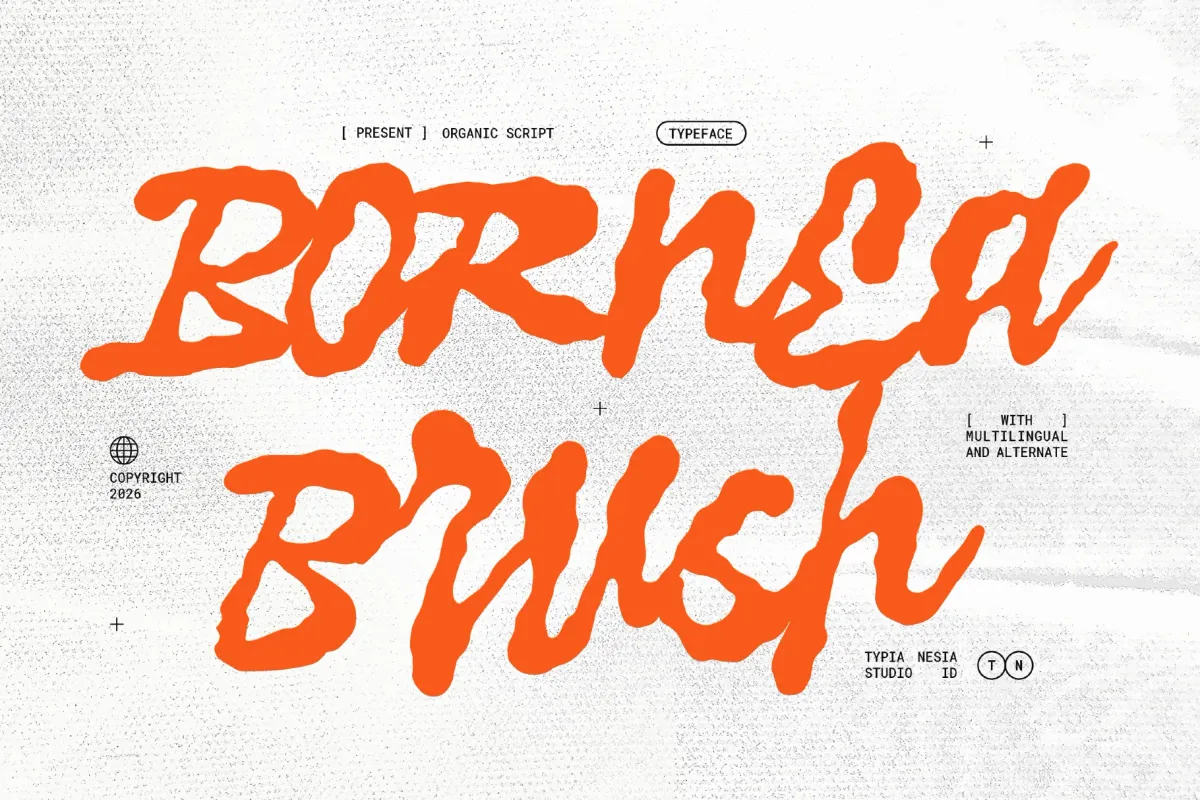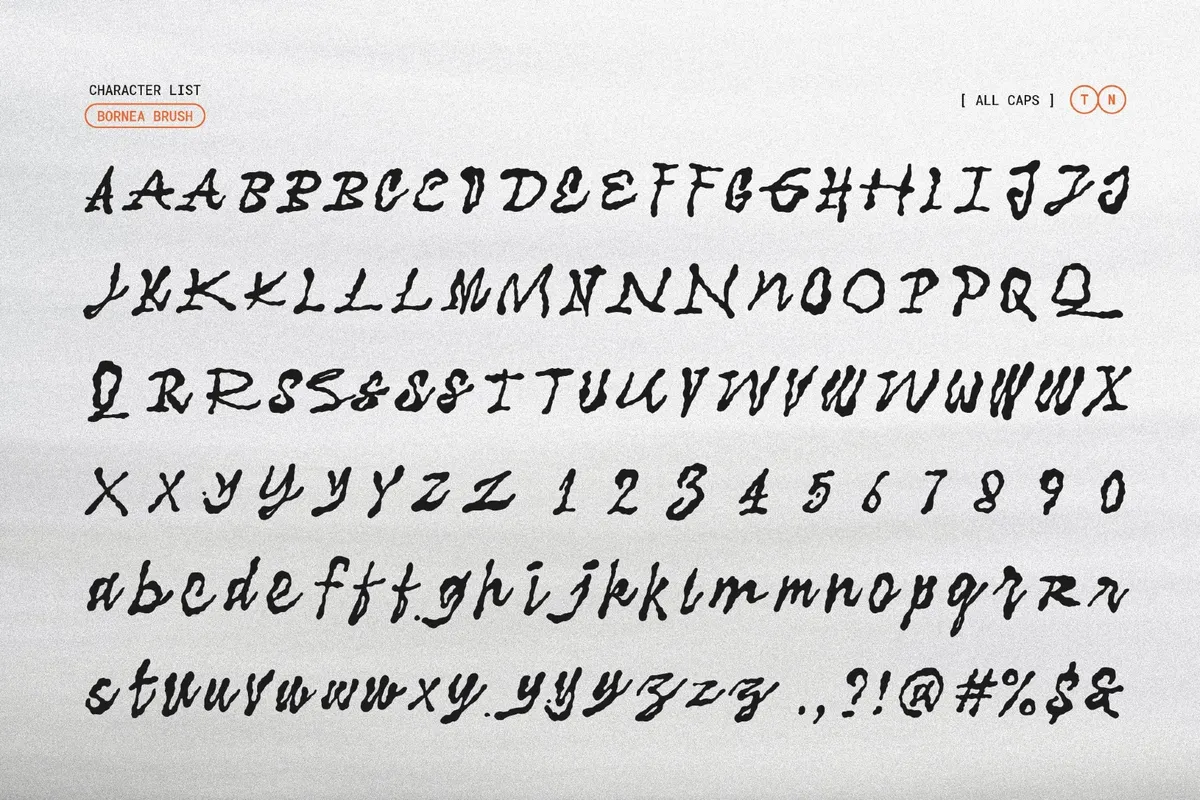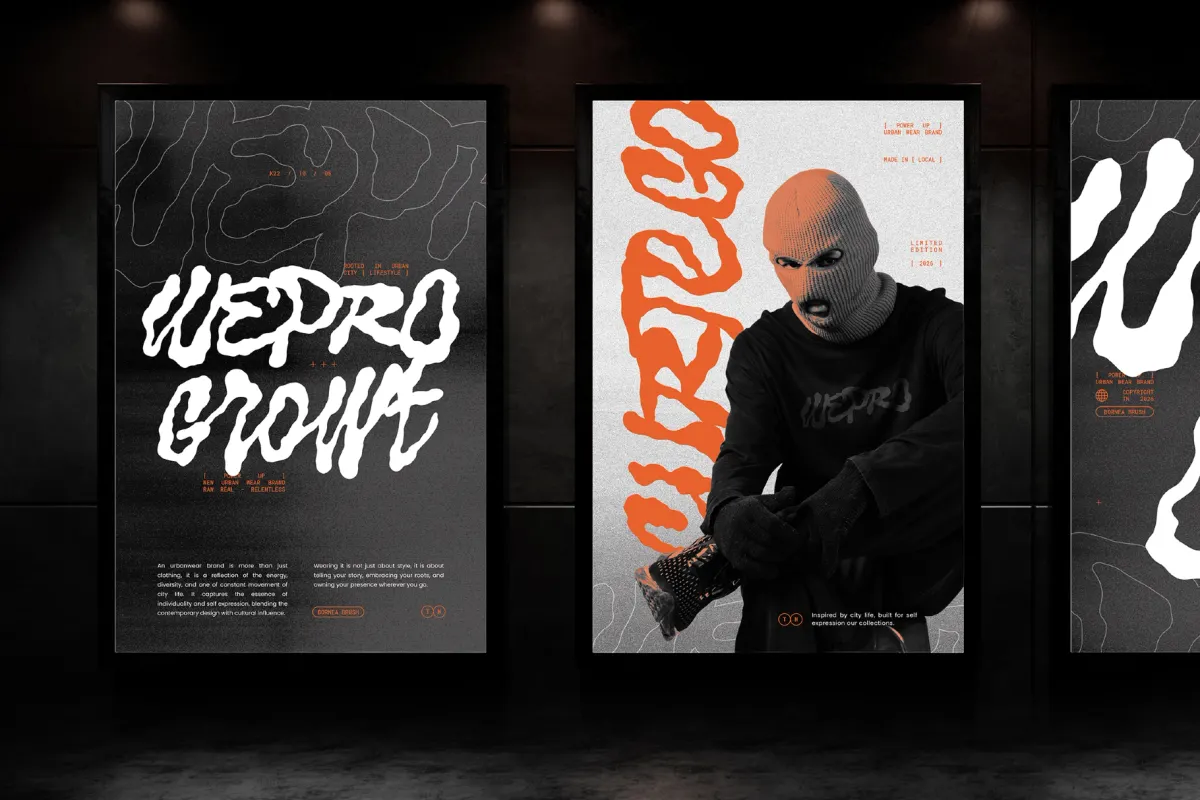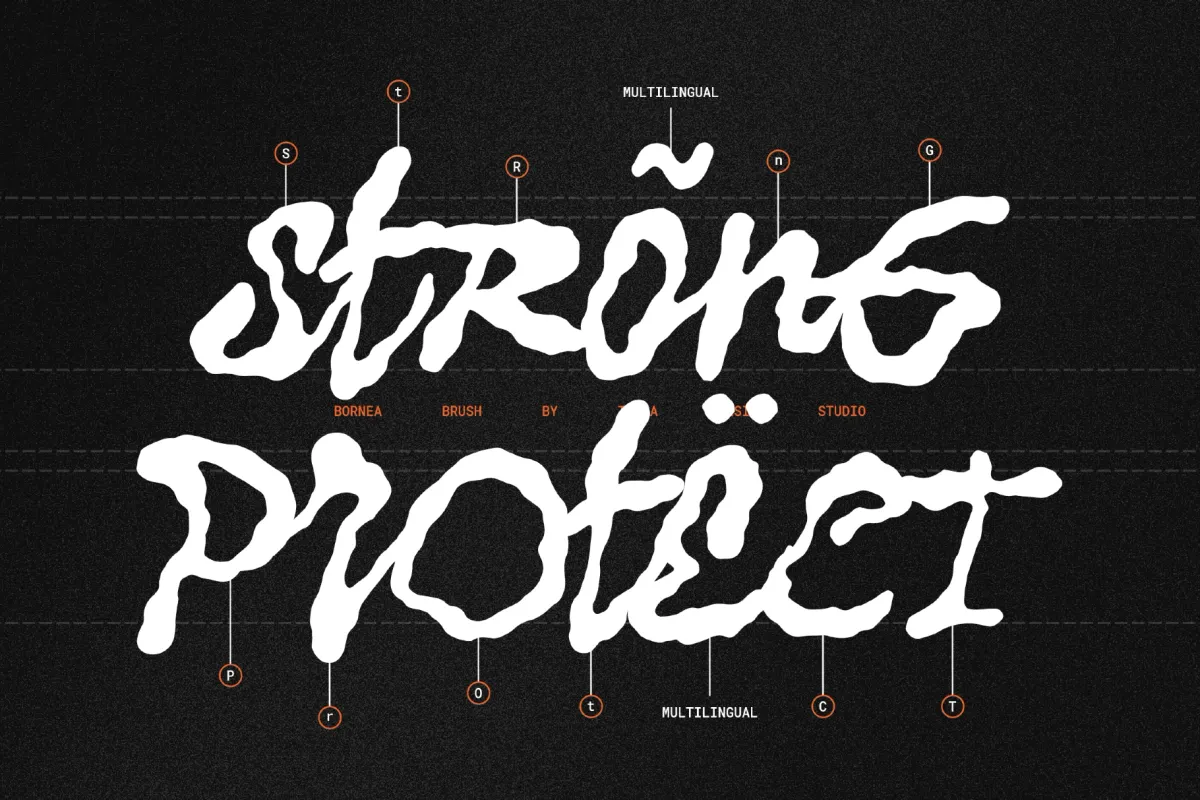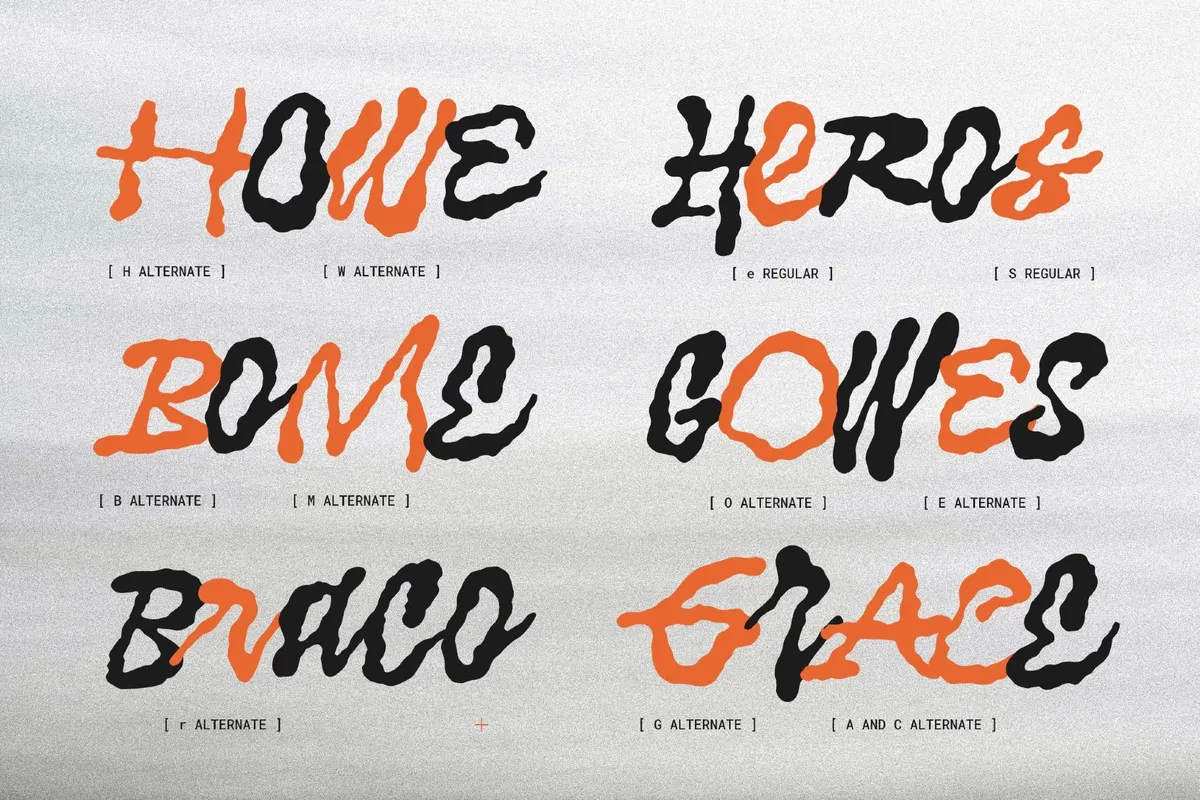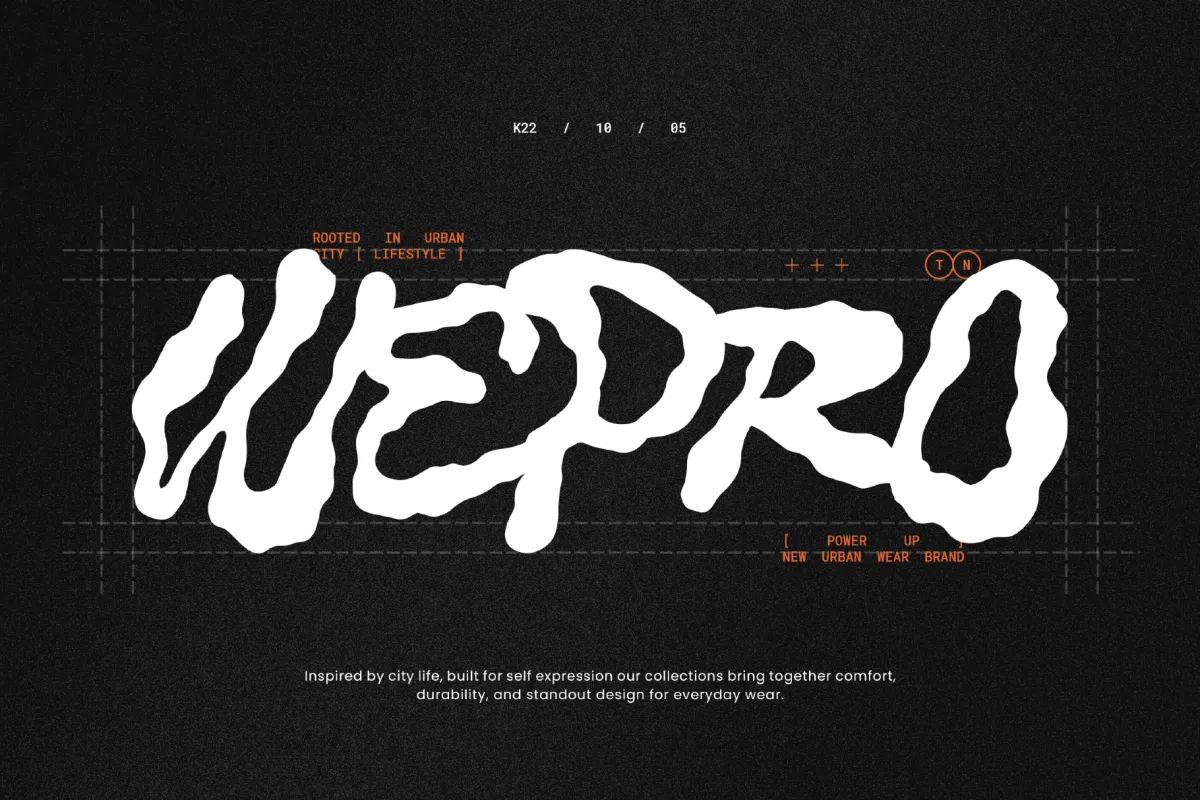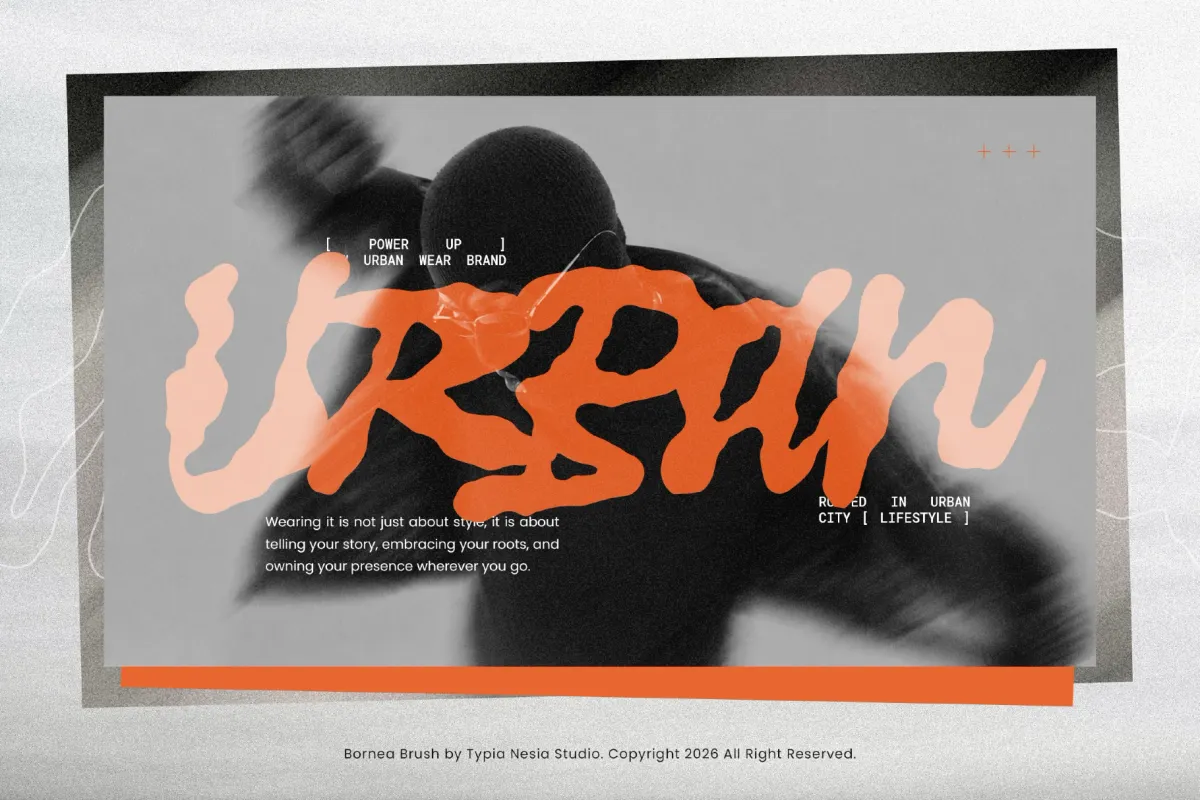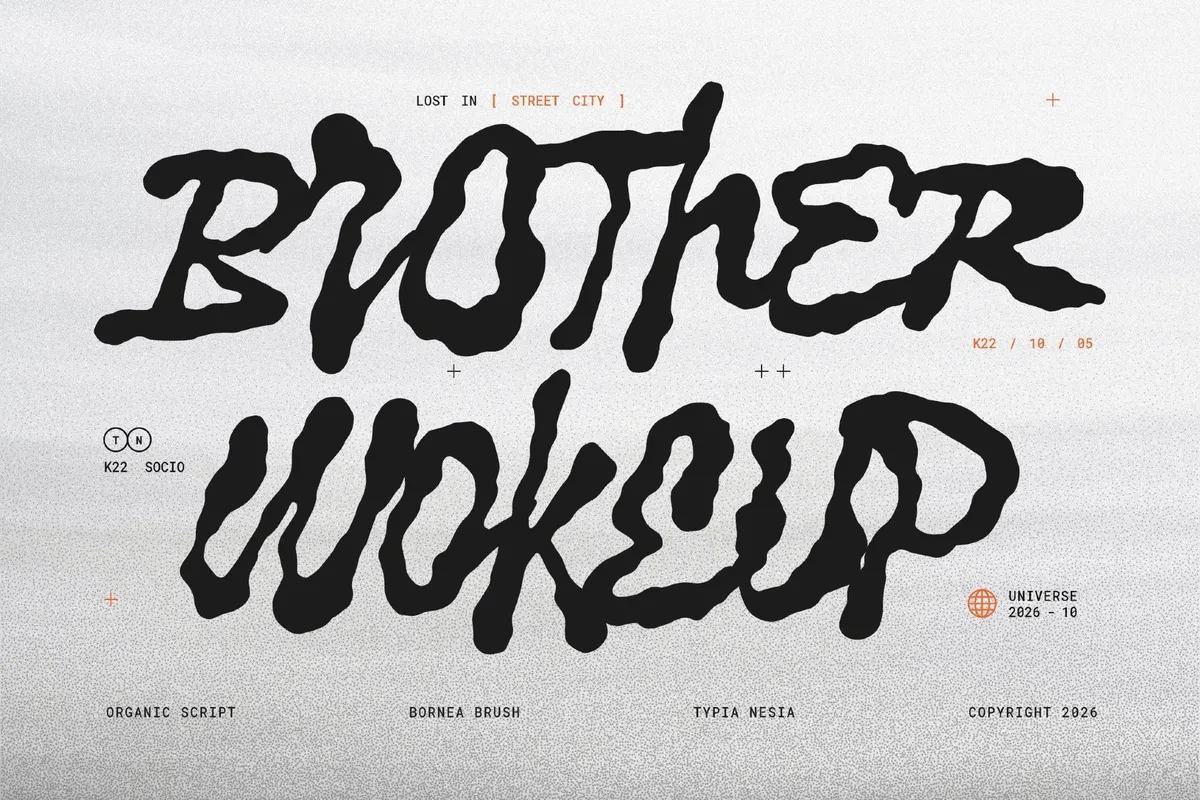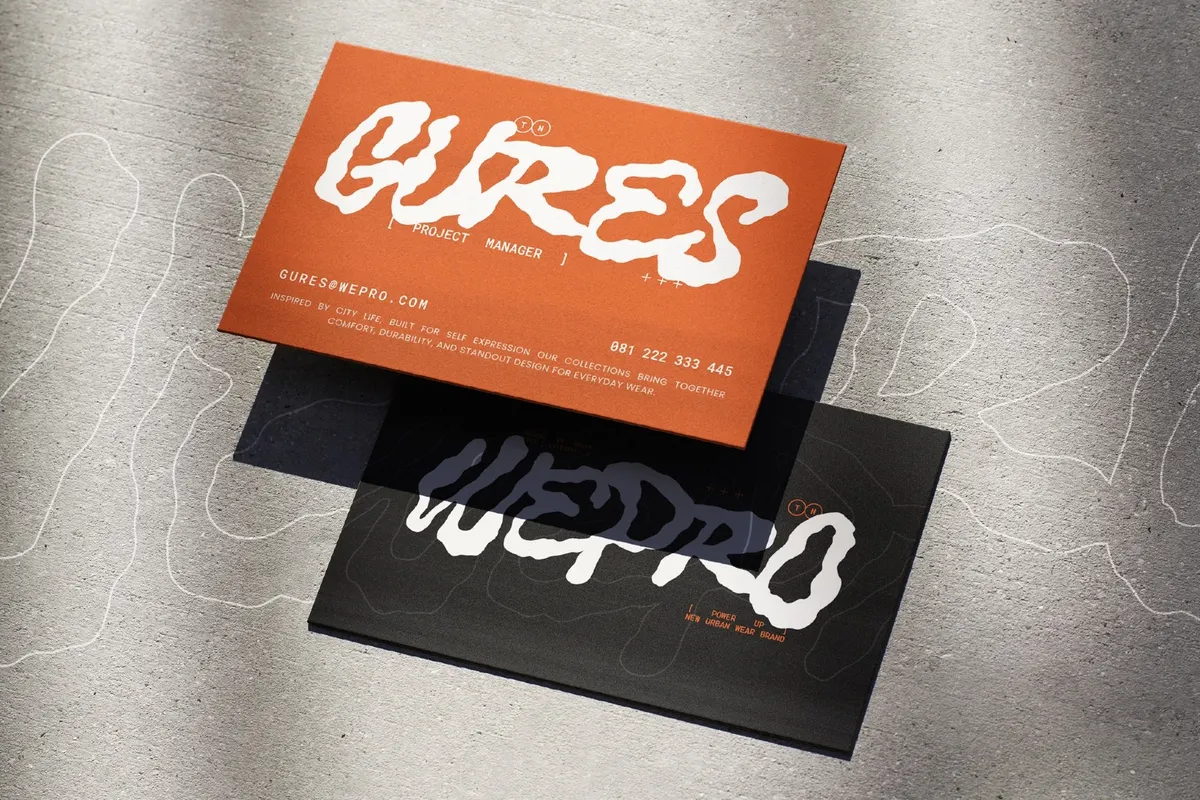
Bornea Brush - Organic Graffiti Script Font
Bornea Brush warps every stroke into an organic graffiti script, where letters bulge, drip, and lean off their baseline like ink still settling on wet paper. Multiple stylistic alternates swap in for repeated letters — separate cuts for H, W, B, M, O, E, G, and lowercase r — so a word like GRACE never repeats the same letterform twice in a row. The psychedelic wobble stays legible at display size, keeping the chaos readable rather than illustrative.
Use it for music posters, album covers, festival branding, apparel and merch graphics, book covers, and event promotions.